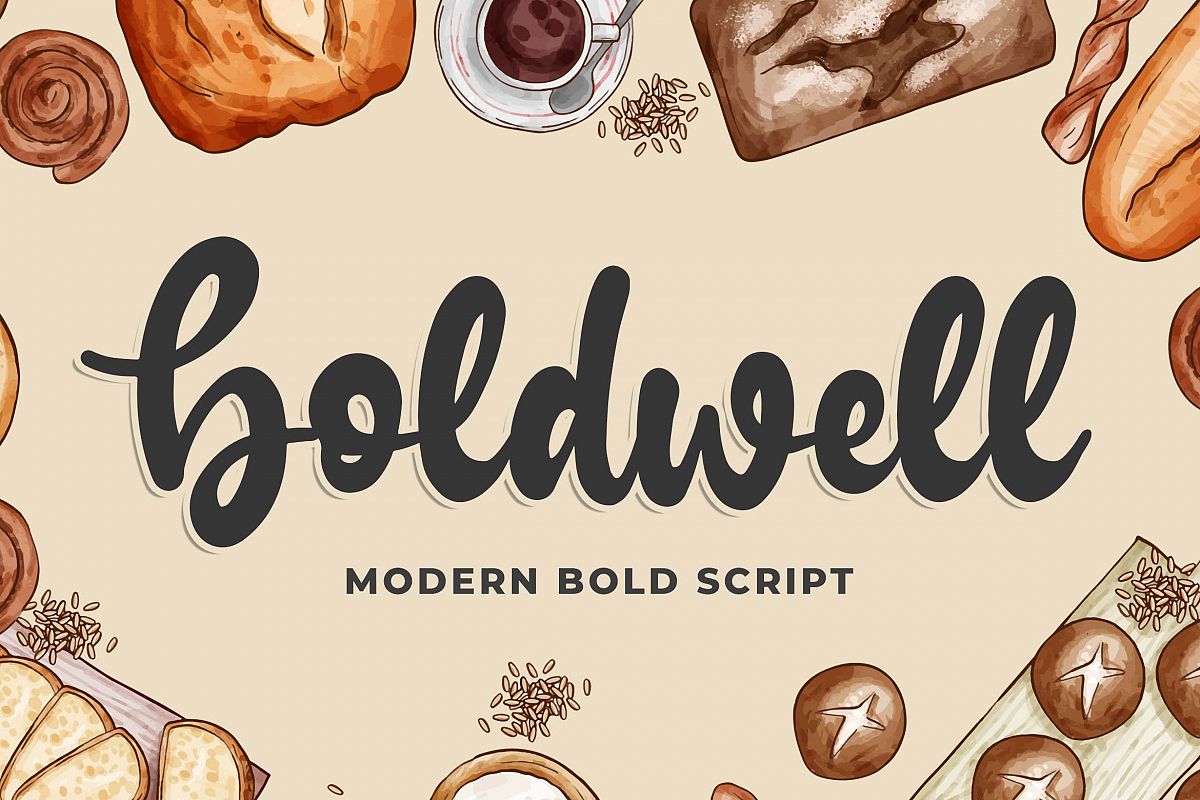
Introducing of our new product the name is Boldwell Bold Modern Script. Boldwell inspired by modern calligraphy this font is a fun theme very good for food logo, food menu, wedding invitation, logotype and etc
MULTILINGUAL ACCENT :ØÆøæ¢ÐŒœÁĂÂÀÄĄÅÃǼĆČÇĈĊĎÉĔĚÊËĖÈĘĞĜĢĠĤÍĬÎÏİÌĮĨĴĶĹĽĻĿŃŇŅÑÓŎÔÖÒŐǾÕŔŘŖŚŠŞŜȘŤŢÚŬÛÜÙŰŲŮŨẂŴẄẀÝŶŸỲŹŽŻáăâäàąåãǽćčçĉċďéĕěêëėèęğĝģġĥíîïìįĩĵķĺľļŀńʼnňņñóŏôöòőǿõŕřŗśšşŝșťţŭûüűùųůũẃŵẅẁýŷÿỳźžż